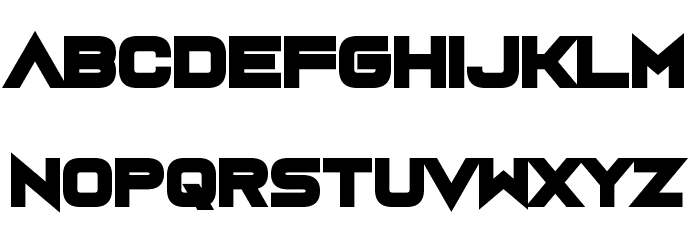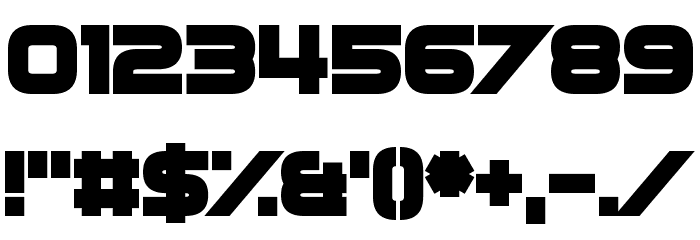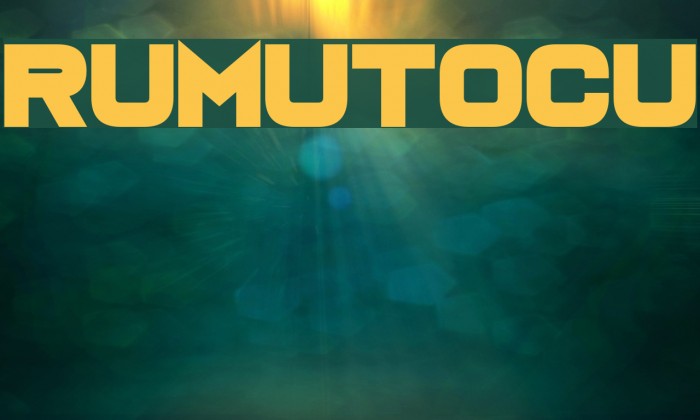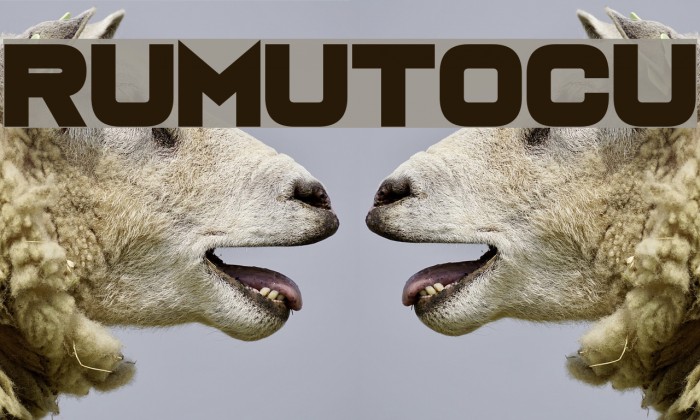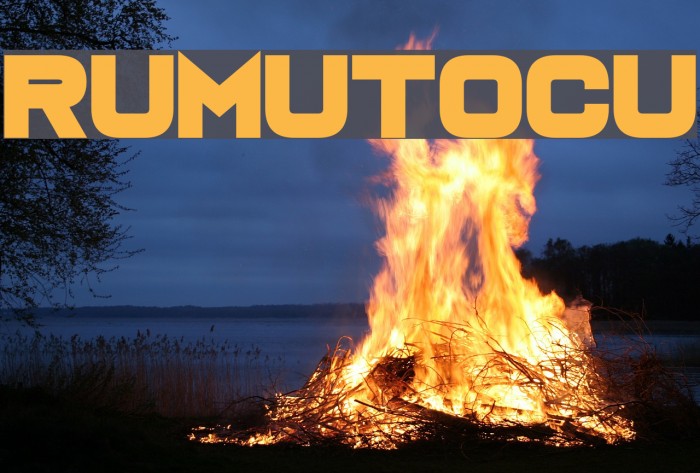
Rumutocu Font
This font features a bold and geometric design, characterized by its sharp angles and strong presence. The uppercase letters are particularly striking, with a futuristic and industrial feel. The characters are wide and blocky, giving a sense of stability and strength. The numbers and special characters maintain this bold style, ensuring consistency across all elements. The font's design is clean and modern, making it suitable for projects that require a strong visual impact.
- Proposed Projects: Ideal for branding, posters, headlines, and any project needing a bold, modern aesthetic.